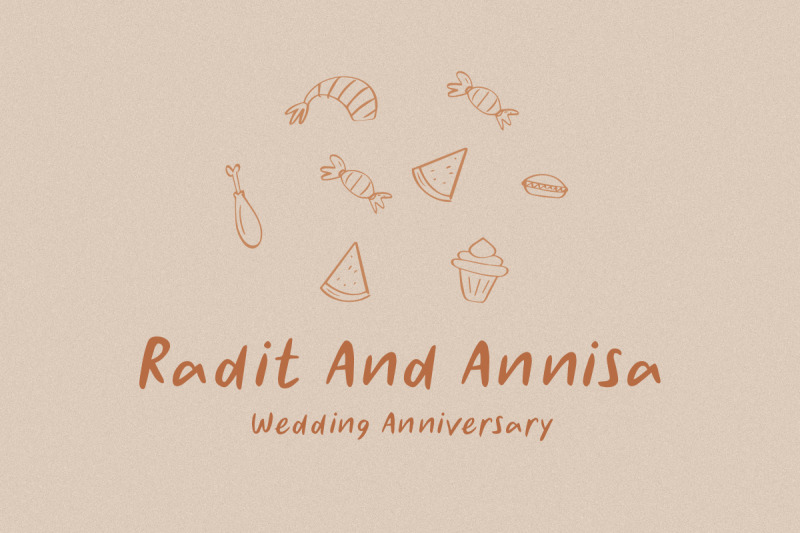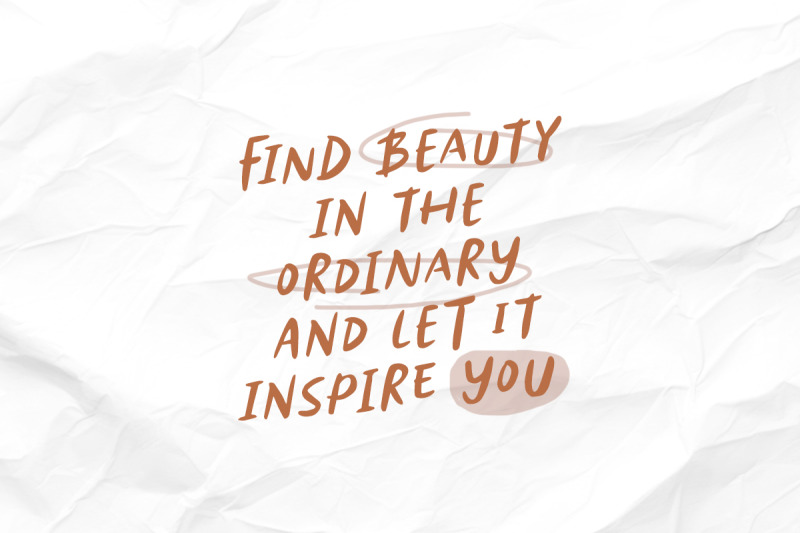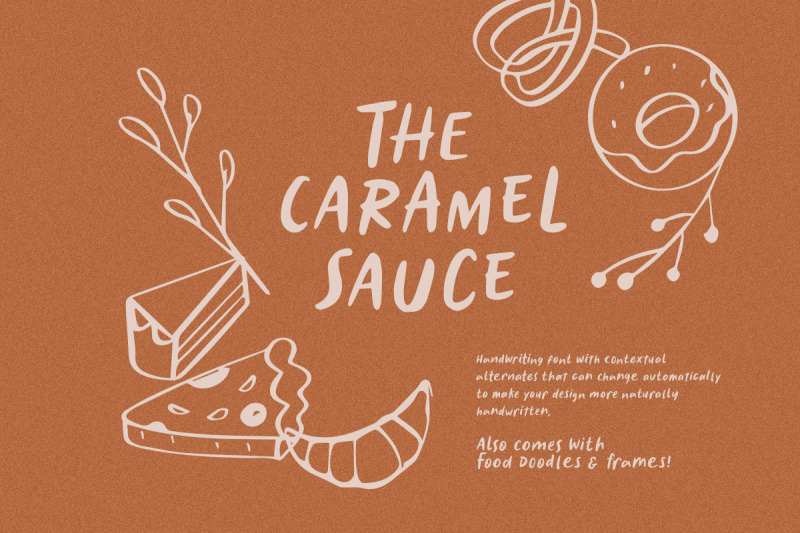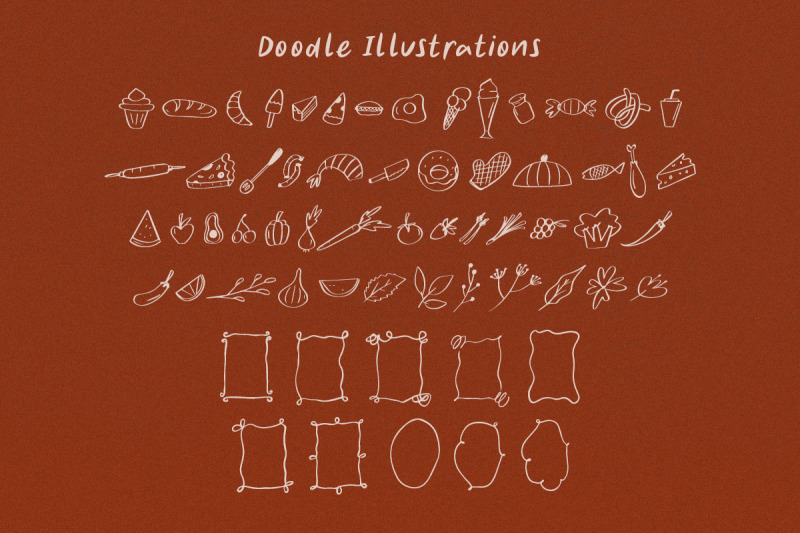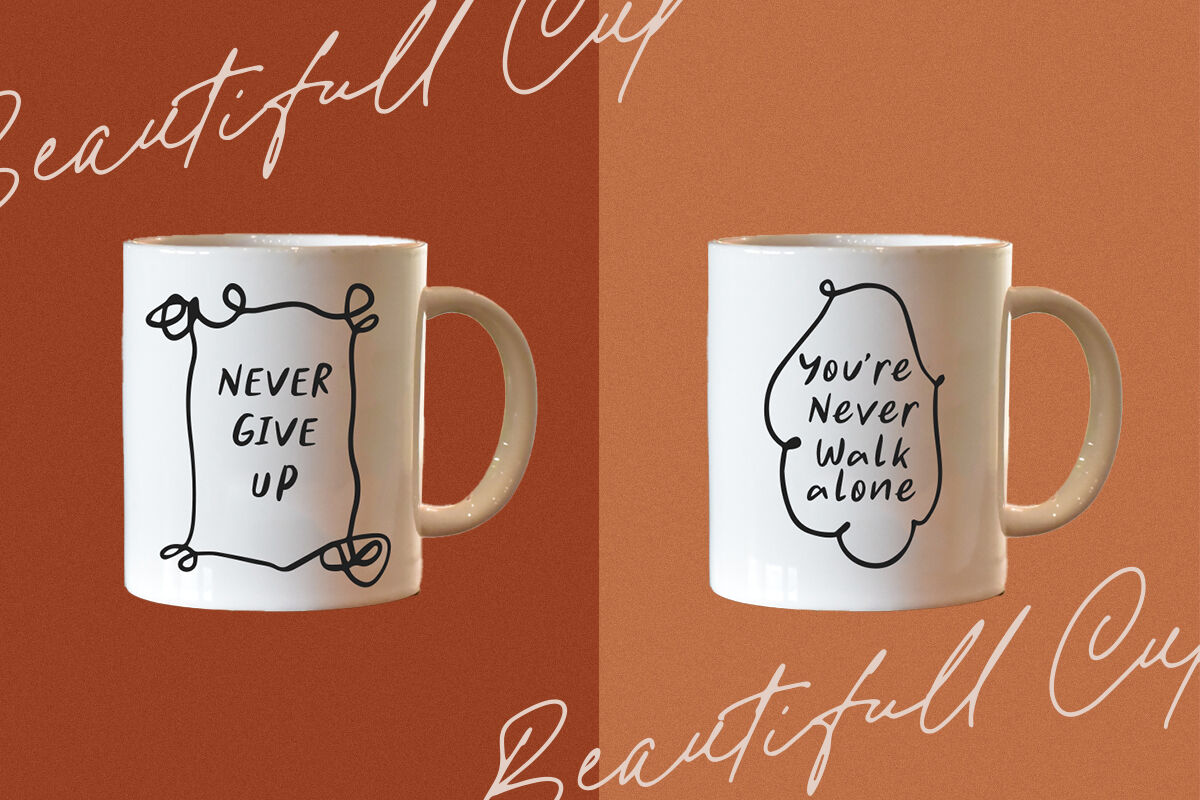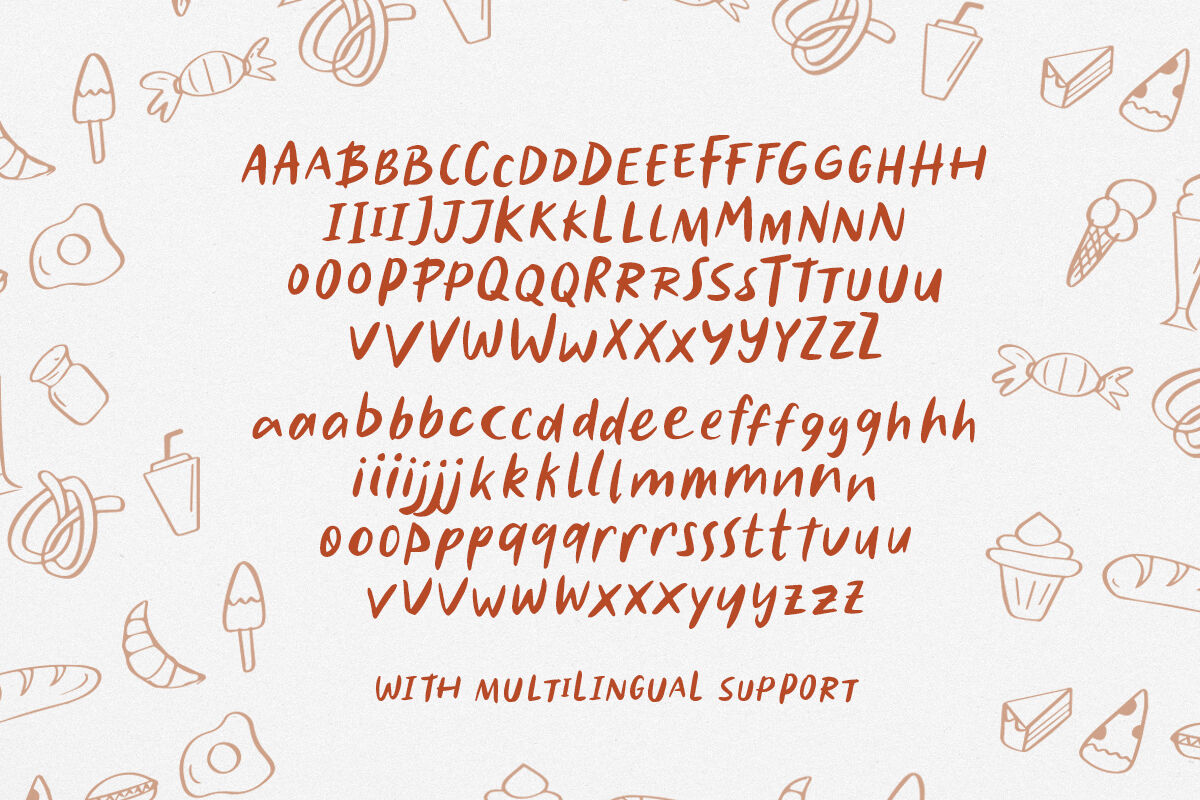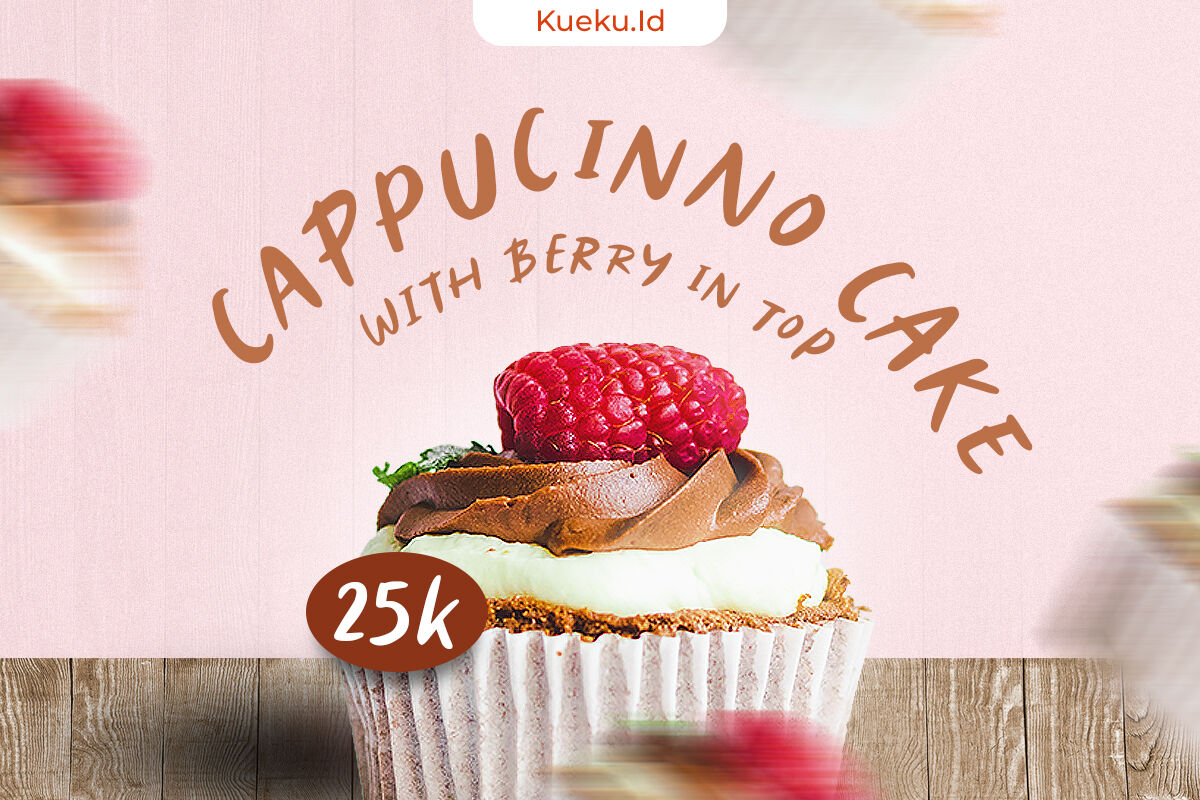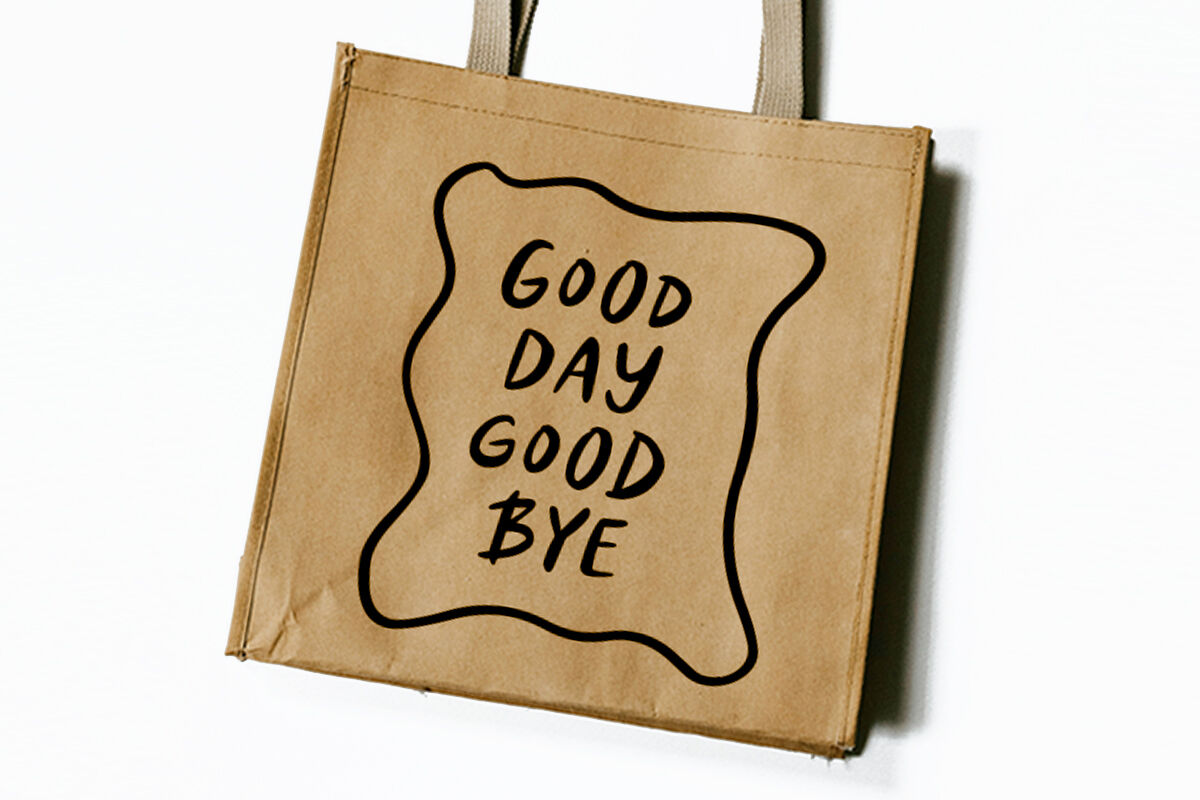
Caramel Sauce Font + Doodle
Caramel Sauce is a handwriting font with doodle. Come with contextual alternates, this font can change automatically between alphabet to make your design more naturally handwritten. You can use this font for any purposes especially for quotes. With special doodle including food, leaves, and frame, that you can use for your project. This font also support multi language.